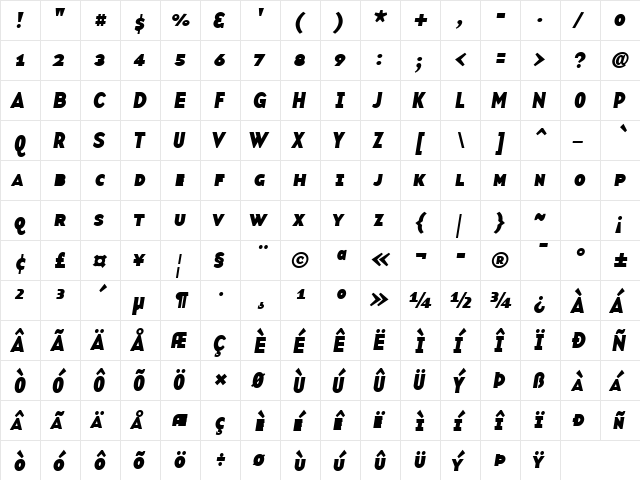
BaseTwSansSmallCaps Bold Italic
Design Context for BaseTwSansSmallCaps Typeface
BaseTwSansSmallCaps is a composed and adaptable typeface that performs quietly and consistently across a wide range of design contexts. The dynamic lean of this cut emphasises speed and emphasis in any layout. The heavy weight commands attention and anchors typographic hierarchies.
Pro Tip: Use BaseTwSansSmallCaps for emphasis, pull quotes, and subheadings where its slanted energy can add rhythm to the layout.